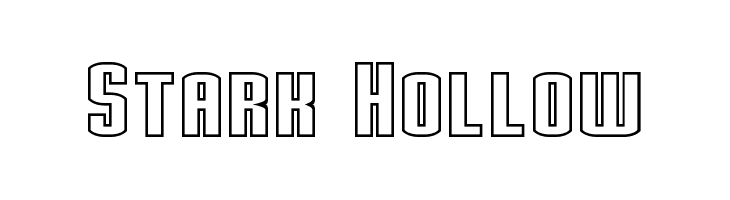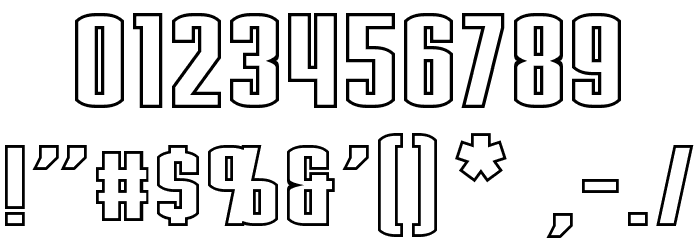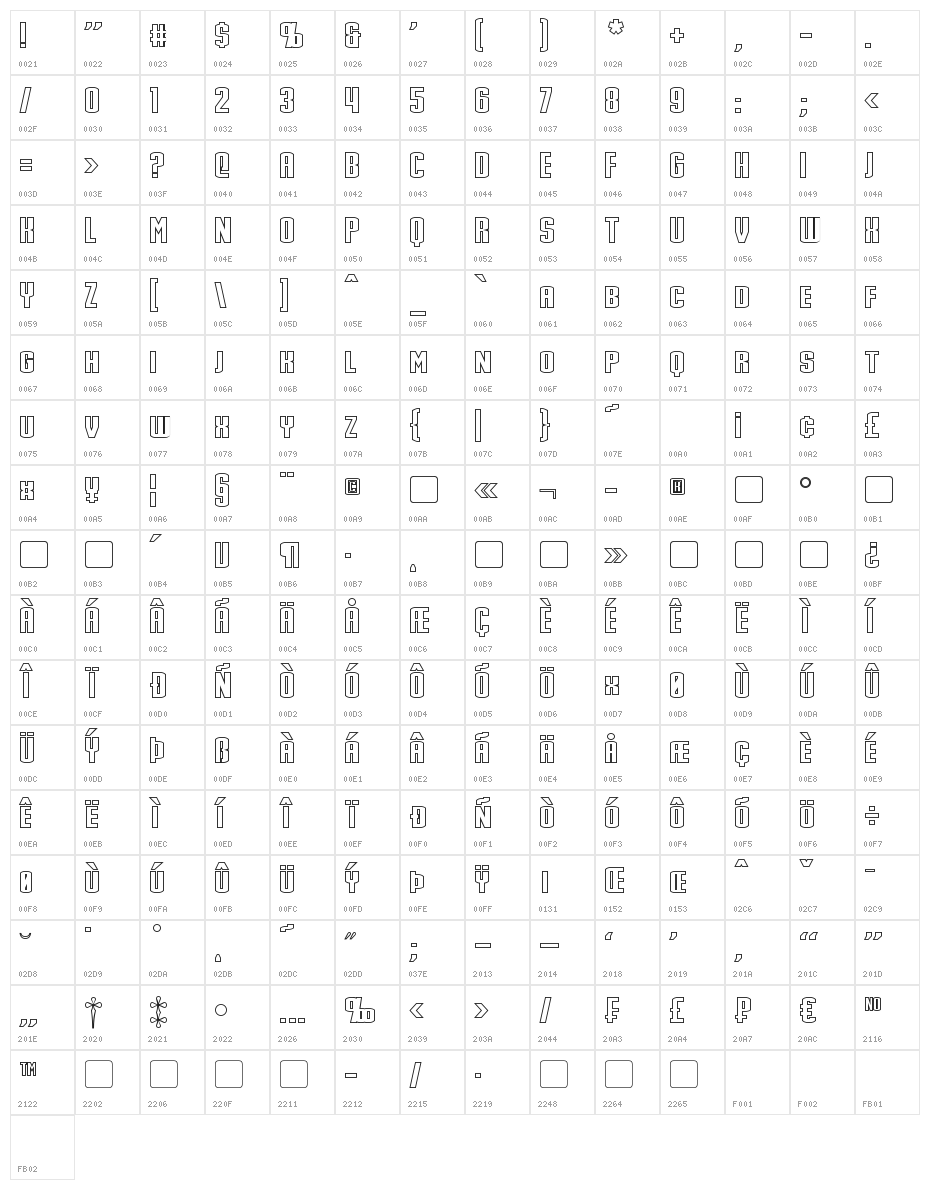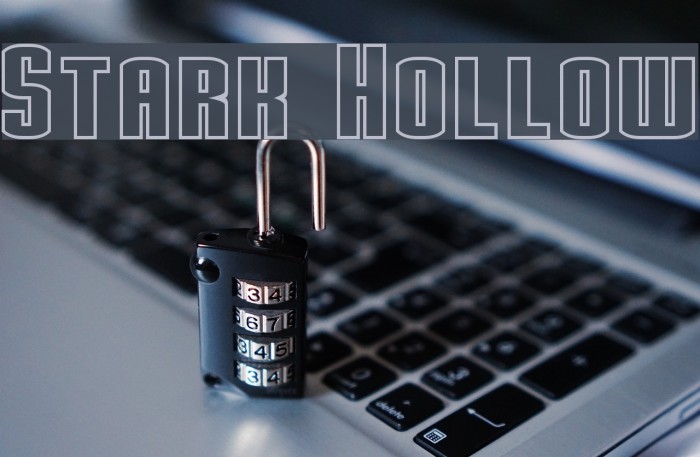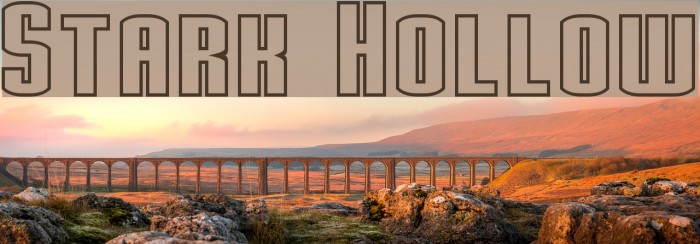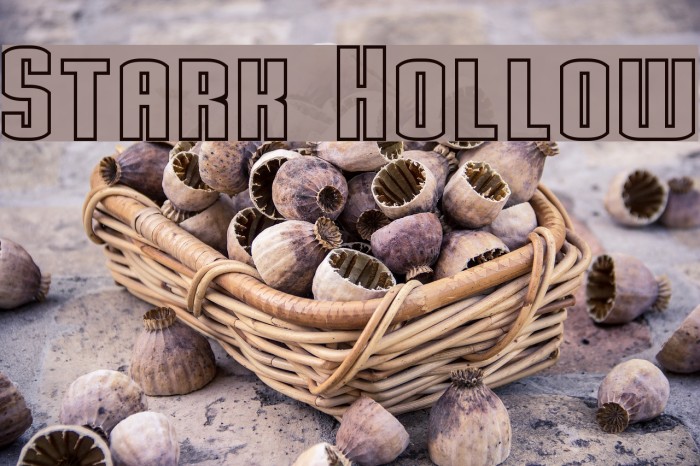
Stark Hollow Font
Stark Hollow Description
This font features a bold, hollow design with a strong geometric structure. Each character is outlined, creating a striking visual effect that emphasizes its shape and form. The uppercase letters are uniform in height, with sharp angles and clean lines that convey a sense of modernity and strength. The numbers and special characters maintain this consistent style, ensuring a cohesive look across all text. The hollow nature of the font adds a unique dimension, making it ideal for eye-catching displays and headlines.
| Proposed Projects | Ideal for posters, logos, headlines, and any design requiring a bold, eye-catching typeface. |